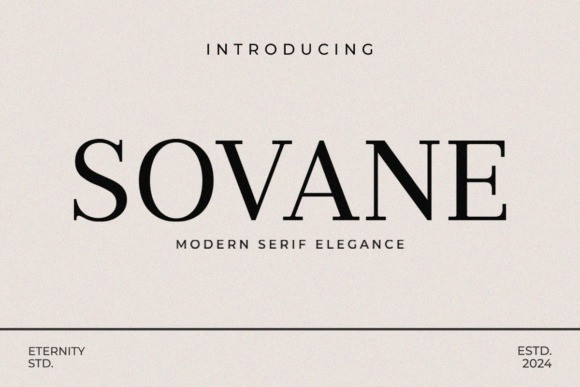
Sovane Font
Designer: Eternity STD
Sovane Font is a meticulously crafted serif typeface that embodies a delicate balance between classic charm and contemporary chic. Its elegant proportions, crisp serifs, and perfectly balanced strokes exude an air of luxurious minimalism, making it the quintessential choice for projects demanding understated class.
This modern serif typeface offers exceptional readability at various sizes, ensuring your message is conveyed with clarity and prestige. Ideal for high-end branding, editorial design, wedding invitations, sophisticated logos, and refined web typography, the Sovane typeface elevates any design with its inherent beauty and powerful simplicity. It’s more than just a font; it’s an assurance of polished professionalism and enduring style, promising to leave a lasting impression of refined taste.